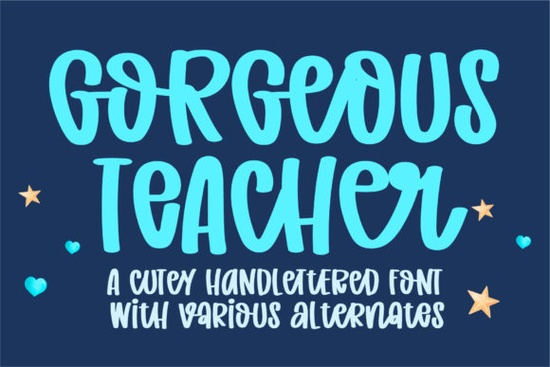
If you're looking for a handwritten font that feels warm, approachable, and polished all at once, the Gorgeous Teacher Font is worth a closer look. It's a cute, friendly script font designed to work beautifully for logos, branding, quotes, and all kinds of creative projects. Whether you sell on Etsy, design for clients, or just love making things in Canva or Cricut, this font fits right in.
What Makes the Gorgeous Teacher Font Stand Out?
There are thousands of script fonts out there, so what makes this one different? A few things actually:
- Handwritten feel with a clean finish It looks personal and organic without being messy or hard to read.
- PUA encoded Every glyph, swash, and alternate character is accessible. You don't need special software or workarounds to use the extras.
- Versatile style It works for feminine branding, teacher-themed designs, quotes, stickers, and more.
Compared to something bolder like a bold script font, Gorgeous Teacher leans softer and more approachable. That makes it ideal when you want your text to feel inviting rather than dramatic.
What Can You Use This Font For?
This is one of those fonts that fits into a lot of different projects. Here are some common ways people use it:
- Logo design Great for small businesses, boutiques, tutoring services, and personal brands that want a friendly look.
- Teacher resources Worksheets, classroom posters, name tags, and educational printables.
- Print-on-demand products Mugs, tote bags, t-shirts, and tumblers with quote-based designs.
- Social media graphics Instagram quotes, Pinterest pins, and story templates.
- Wedding and event stationery Invitations, place cards, and thank-you notes.
- Sticker designs Planner stickers, laptop decals, and gift tags.
Yes, and this is where the PUA encoding really matters. Some fonts include fancy alternates and swashes but lock them behind software that supports OpenType features. That can be frustrating if you're using basic design tools.
With the Gorgeous Teacher Font, every character is accessible through standard character maps. That means you can copy and paste swashes, ligatures, and alternates whether you're working in:
How Does It Pair With Other Fonts?
Good font pairing is half the battle in design. The Gorgeous Teacher Font works well alongside clean sans-serif fonts for contrast. Think of pairing it with a simple, modern typeface for body text while using the handwritten script for headlines or accents.
Who Is This Font Best For?
Based on the style and versatility, this font is a strong fit for:
- Teachers and educators creating classroom materials with a personal touch
- Print-on-demand sellers who need eye-catching quote designs
- Small business owners building a friendly, approachable brand identity
- Crafters using Cricut or Silhouette for custom projects
- Social media managers looking for fonts that feel genuine and warm
- Wedding stationery designers who want an elegant but casual script
It's not the best pick if you need something ultra-formal or highly decorative. For those situations, a traditional calligraphy font or a structured serif might work better.
Quick Checklist Before You Buy
Before grabbing this font, make sure it lines up with what you need:
- ✅ You want a friendly, handwritten look not a heavy or formal script
- ✅ You need full access to glyphs and swashes without advanced software
- ✅ You're designing for logos, branding, quotes, POD, or classroom use
- ✅ You plan to pair it with a clean sans-serif for balanced layouts